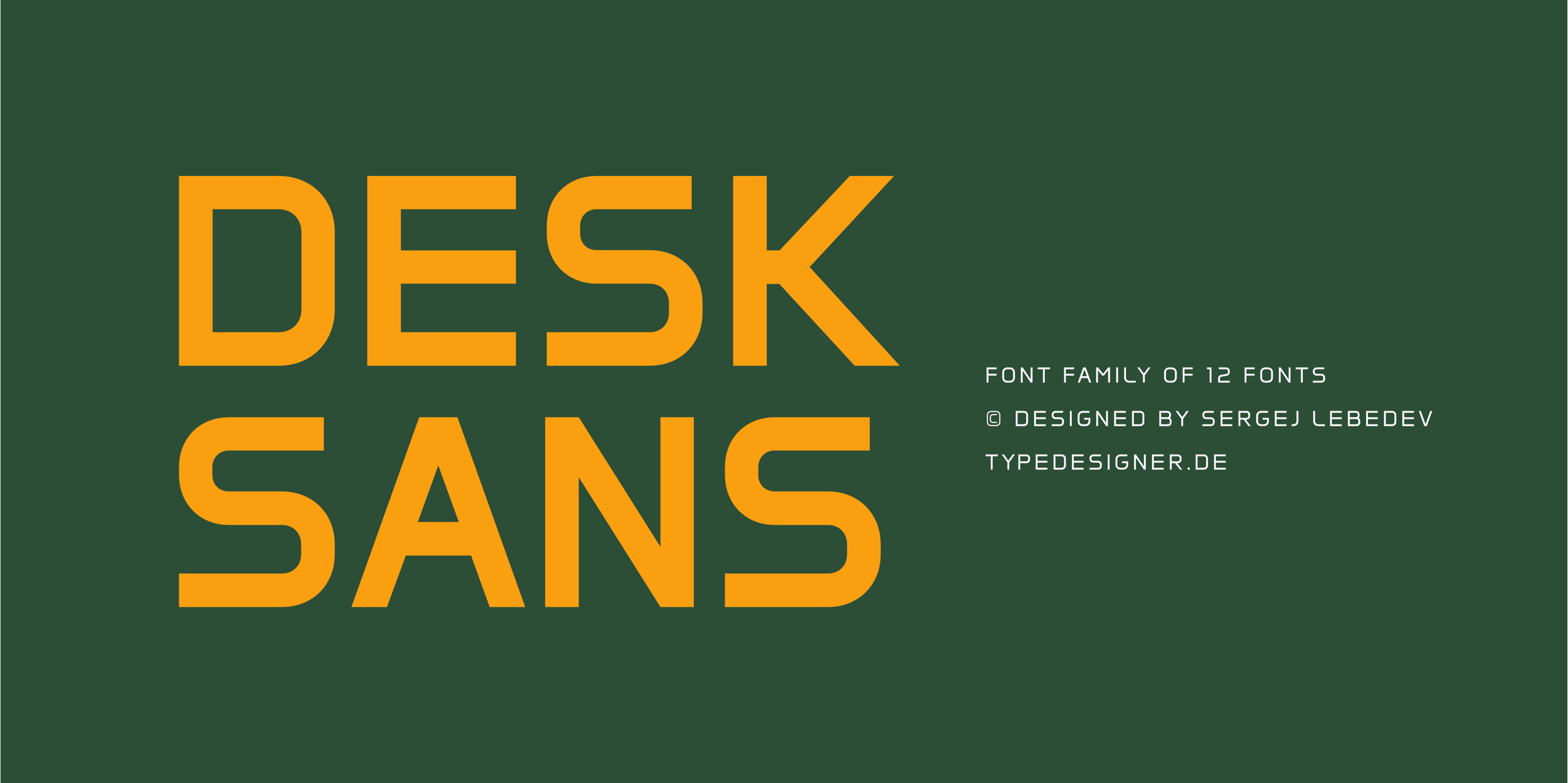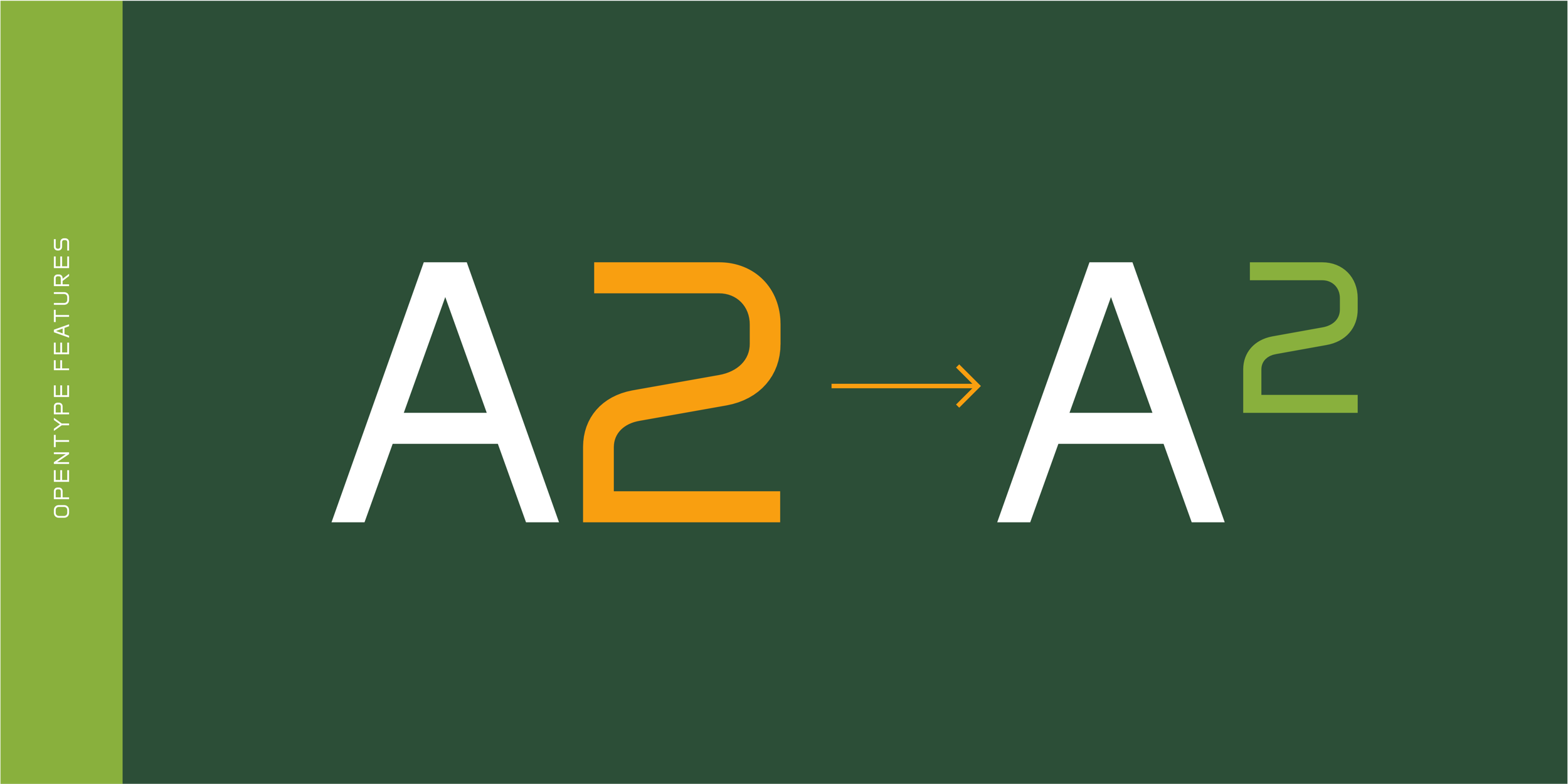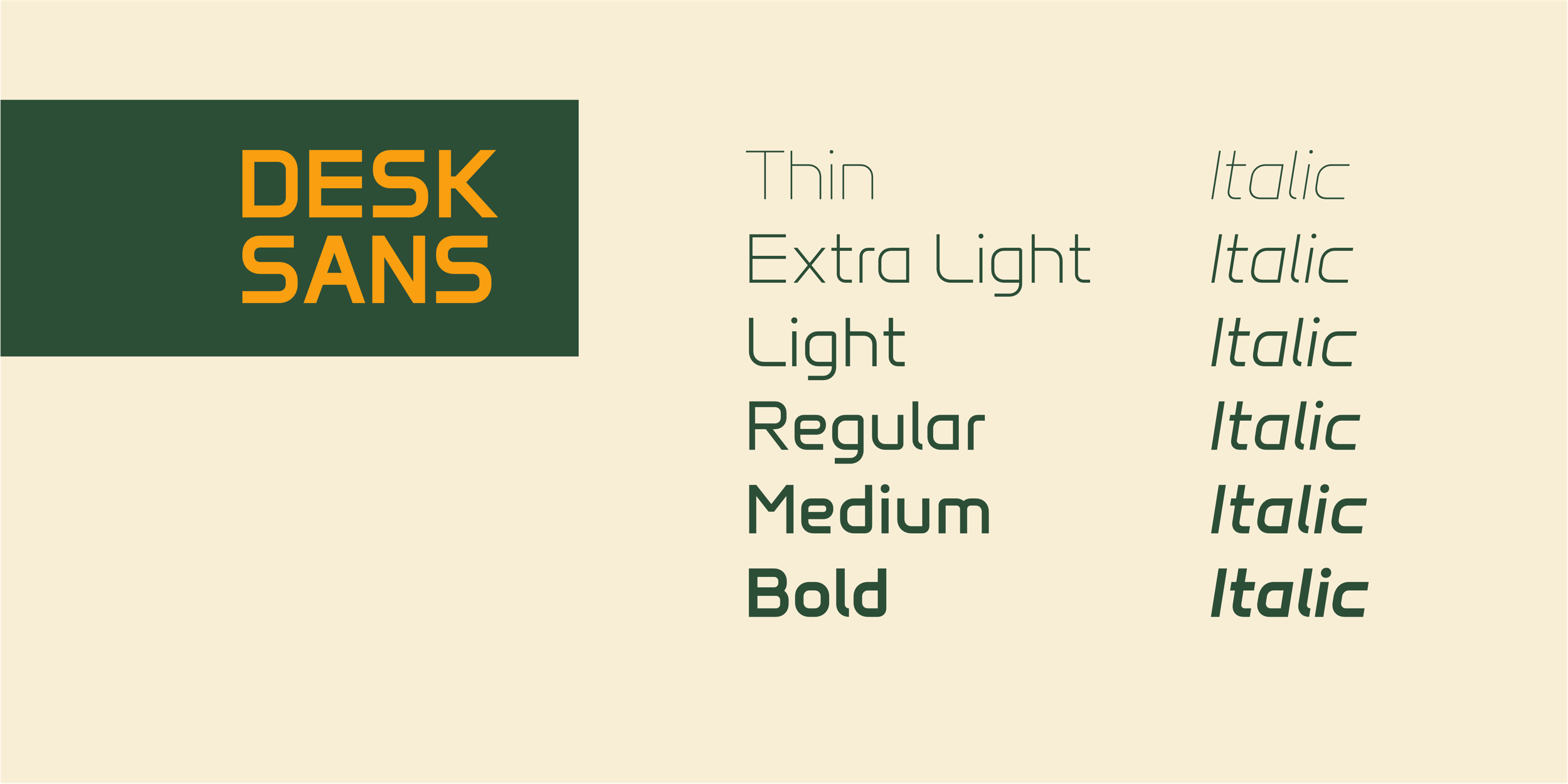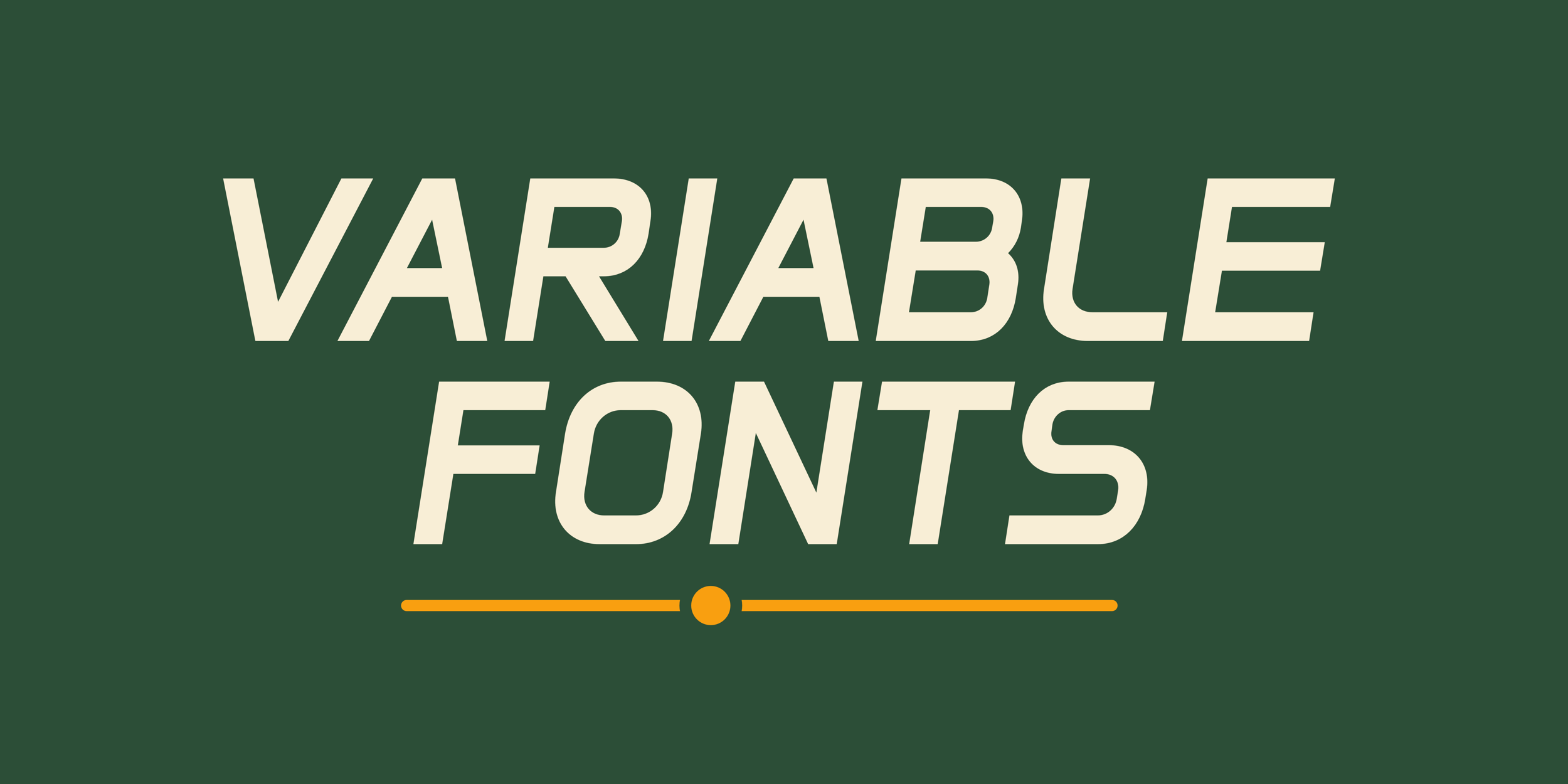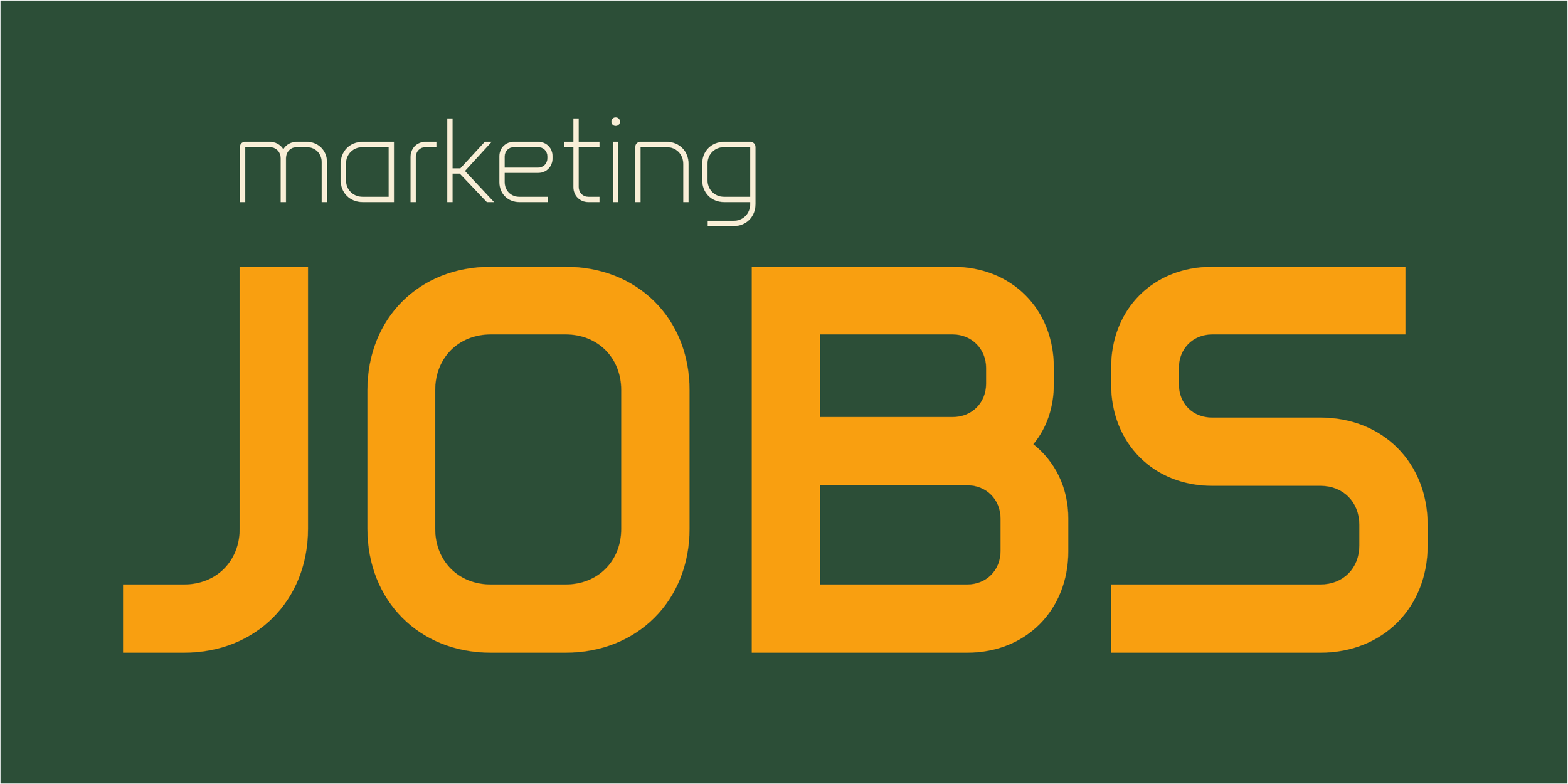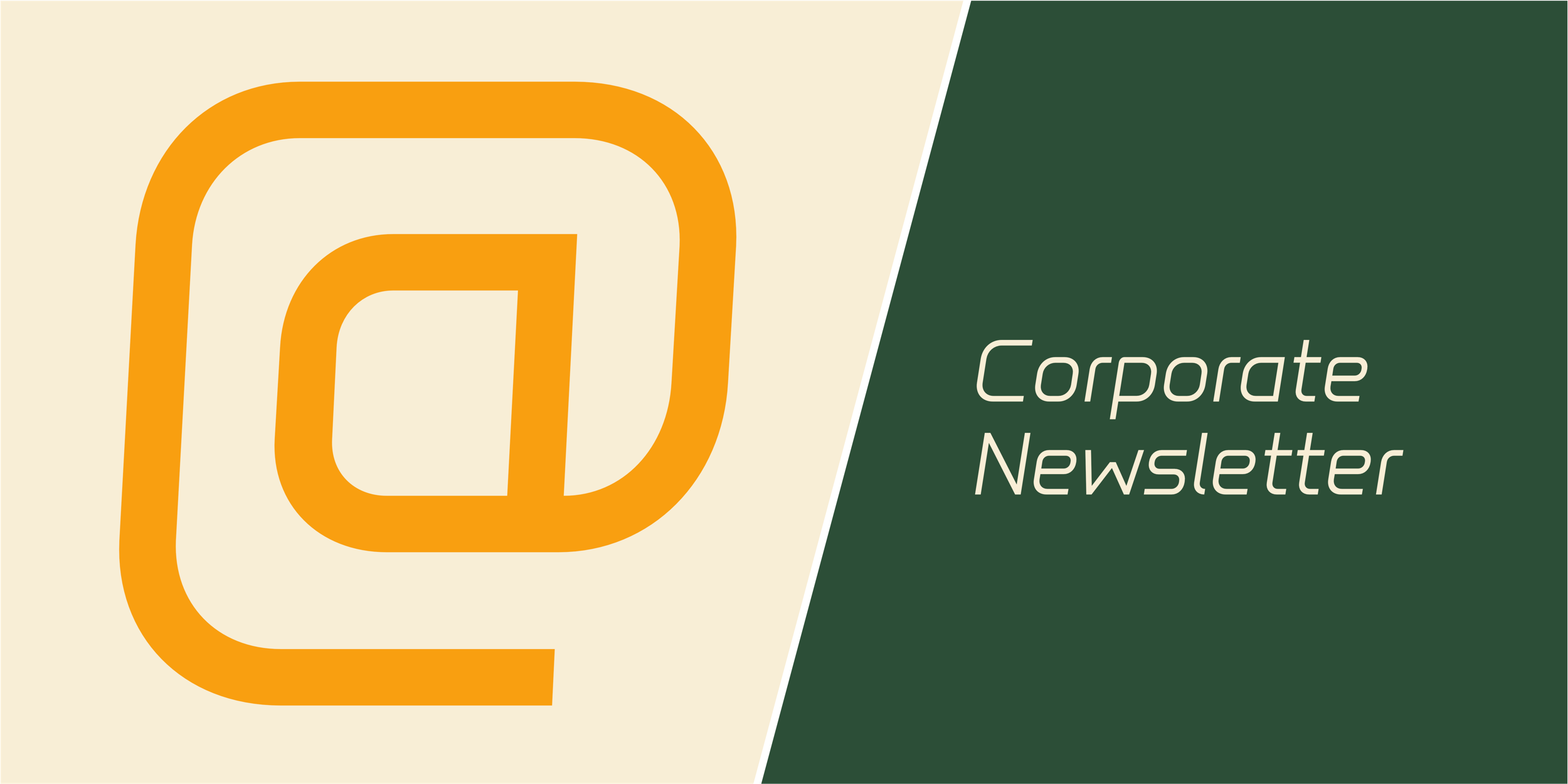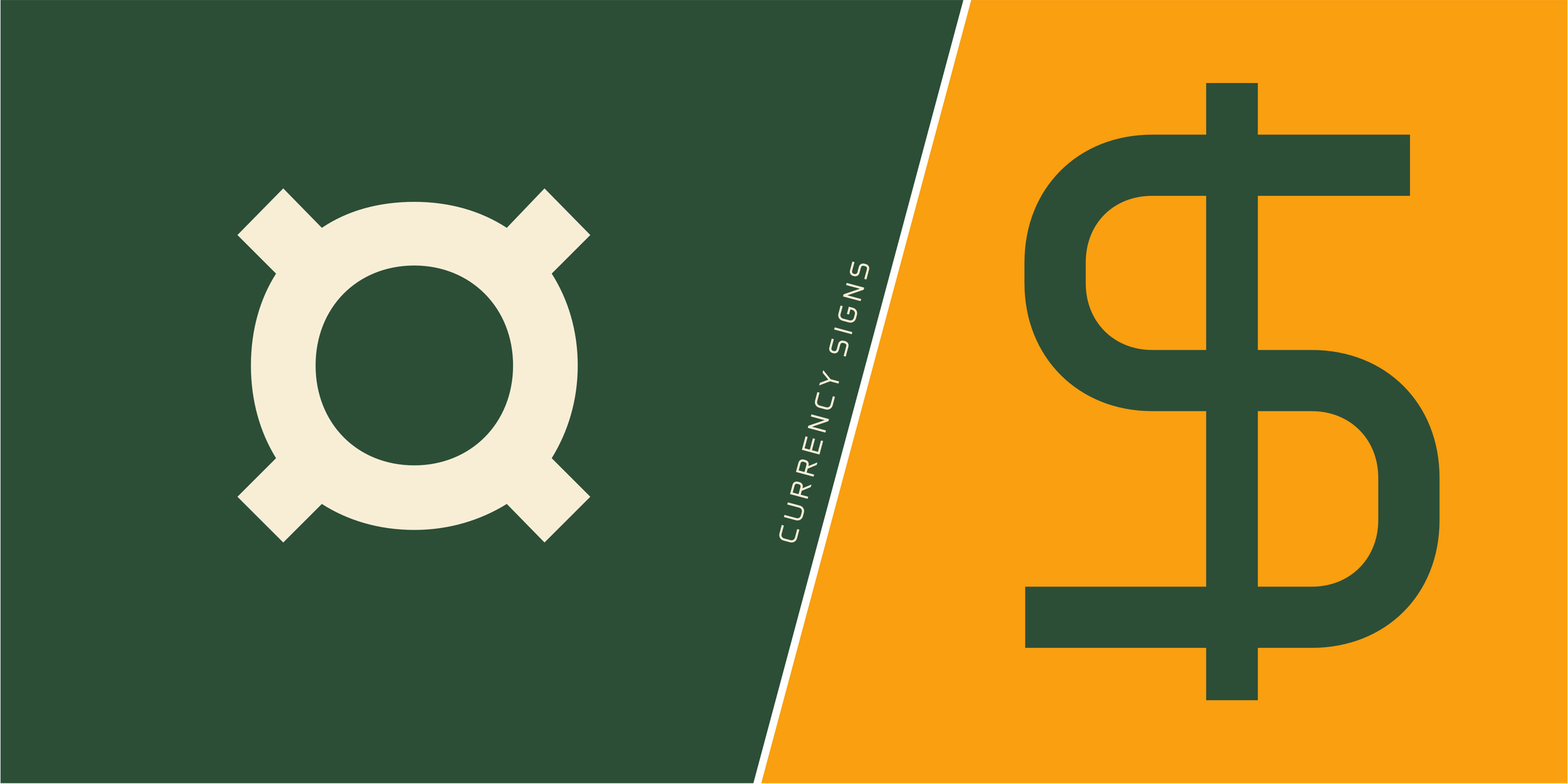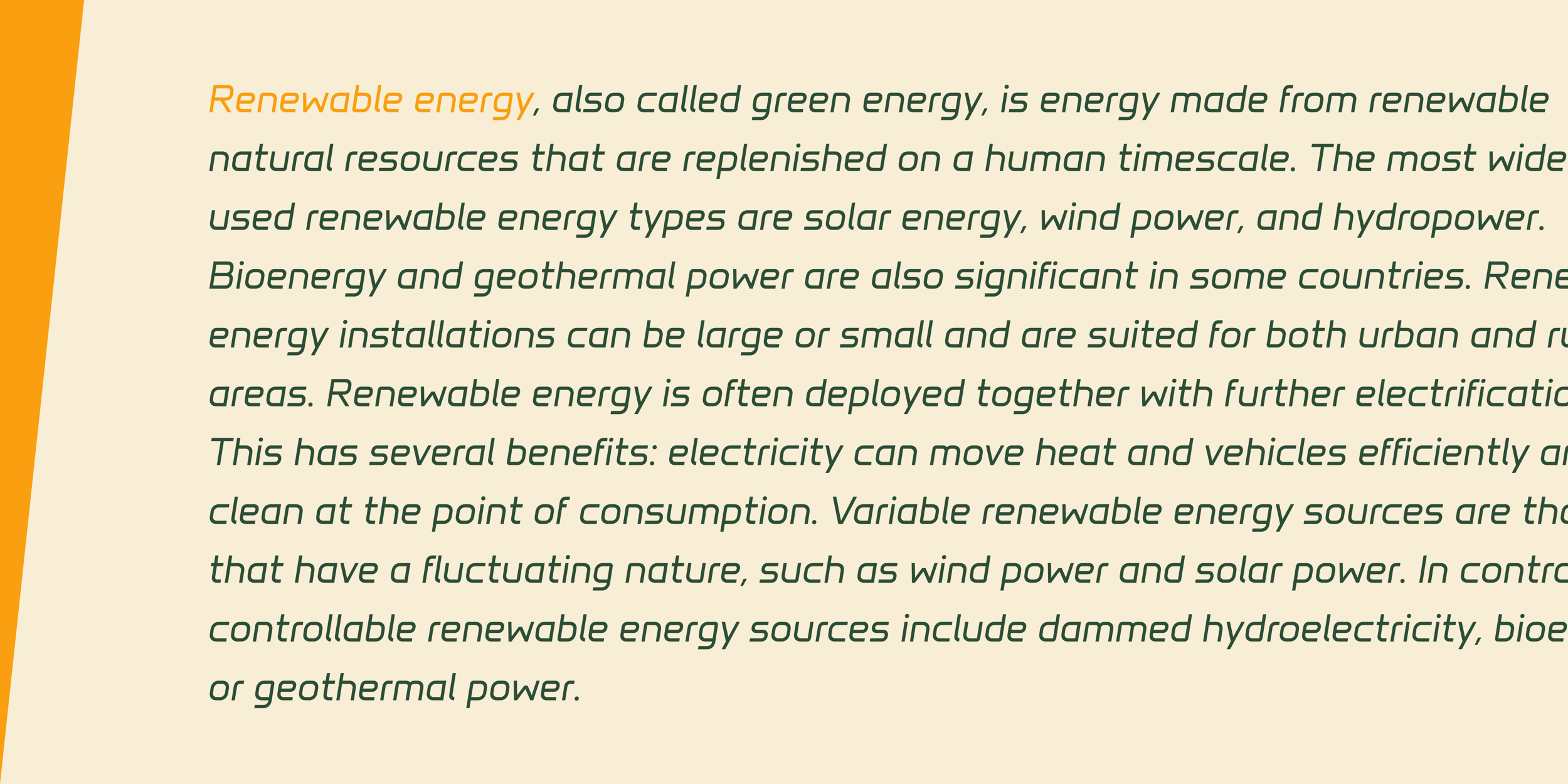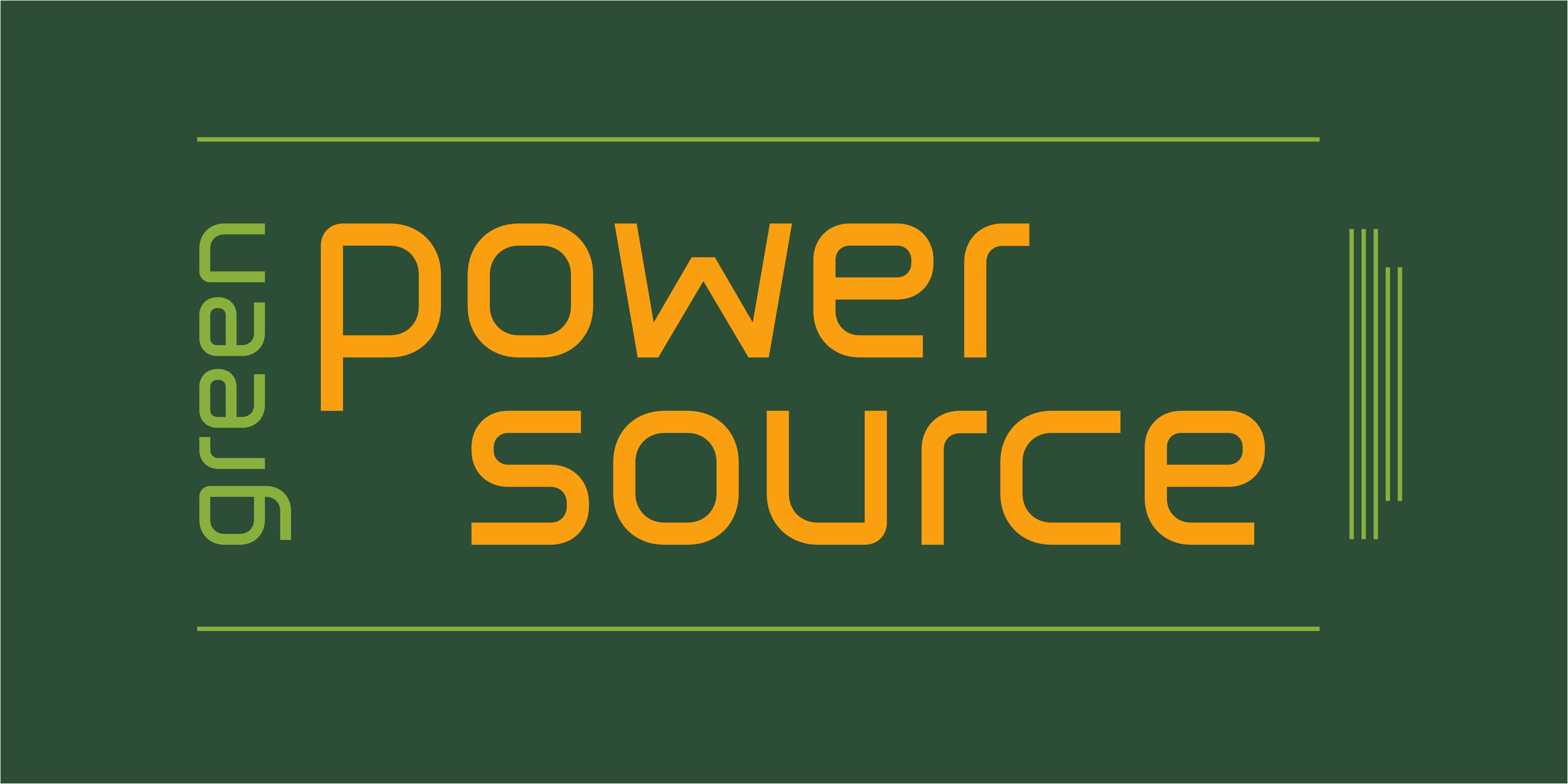
Desk Sans Font Family
Desk Sans is a modern, versatile type family known for its clear structure and exceptional flexibility. Designed to ensure optimal legibility at all sizes and across all screens, Desk Sans excels in branding, graphic design, product design, information design, and user interface design. With 12 fonts and 2 variable fonts, along with 735 characters, Desk Sans supports over 200 languages, providing comprehensive international compatibility. The family includes six weights, from Thin to Bold, each with matching Italics. Thanks to its precisely designed letterforms, Desk Sans provides optimal legibility even at small font sizes and meets the highest modern typographic standards. Perfect for any application where precision and clarity are essential.
The Desk Sans typeface supports the following Latin-based languages:
Albanian, Aragonese, Aromanian, Arpitan, Bashkir (Latin), Basque, Belarusian (Latin), Bosnian, Breton, Catalan, Colognian, Cornish, Corsican, Crimean Turkish, Crioulo (Upper Guinea), Croatian, Czech, Danish, Dutch, English, Esperanto, Estonian, Extremaduran, Faroese, Finnish, Finnish (Kven), French, Friulian, Gagauz, Galician, Gallo, German, Gheg Albanian, Hungarian, Icelandic, Inari Sami, Indonesian, Interlingua, Irish, Italian, Jèrriais (Latin), Kalaallisut, Karelian, Kashubian, Ladin, Latgalian, Latin, Latvian, Ligurian, Lithuanian, Lombard, Low German, Lower Sorbian, Lule Sami, Luxembourgish, Maltese, Manx, Middle High German, Mirandese, Neapolitan, Northern Frisian, Northern Sami, Norwegian, Norwegian Bokmål, Norwegian Nynorsk, Occitan, Old English, Old French, Old High German, Old Irish, Old Provençal, Old Welsh (Latin), Oroqen, Picard, Piedmontese, Polish, Portuguese, Romagnol, Romani (Balkan), Romanian, Romansh, Romany, Sardinian, Sassarese Sardinian, Saterland Frisian, Scots, Scottish Gaelic, Serbian (Latin), Silesian, Slovak, Slovenian, Southern Sami, Spanish, Swedish, Swiss German, Tatar (Latin), Turkish, Upper Sorbian, Venetian, Veps, Võro, Walloon, Walser, Welsh, Western Frisian